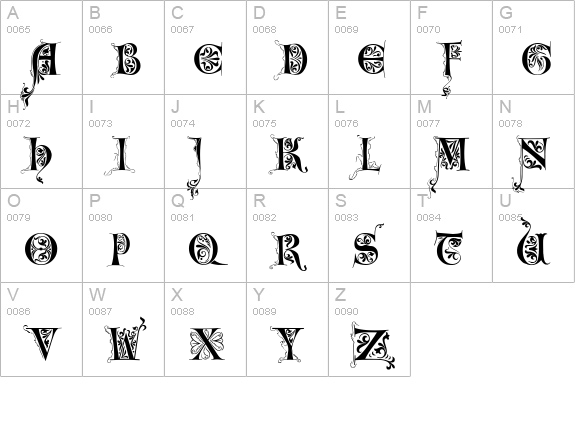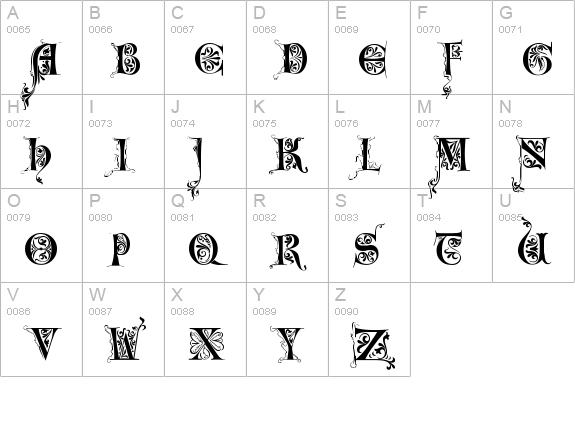
LimeGloryCaps Font Details
Introducing LimeGloryCaps font, a stunning display typeface that exudes elegance and sophistication. With its intricate details and unique letterforms, LimeGloryCaps is the perfect choice for adding a touch of luxury to your designs. The sleek lines and sharp angles of this font make it stand out among the rest, drawing attention and making a bold statement. What's even better is that LimeGloryCaps is available for free download at FontsMarket.com. That's right, you can elevate your projects with this exquisite font without spending a dime. Whether you're working on branding, invitations, posters, or any other creative project, LimeGloryCaps will surely make a lasting impression. Don't miss out on the opportunity to enhance your designs with this exceptional typeface. Download LimeGloryCaps today and let your creativity shine!